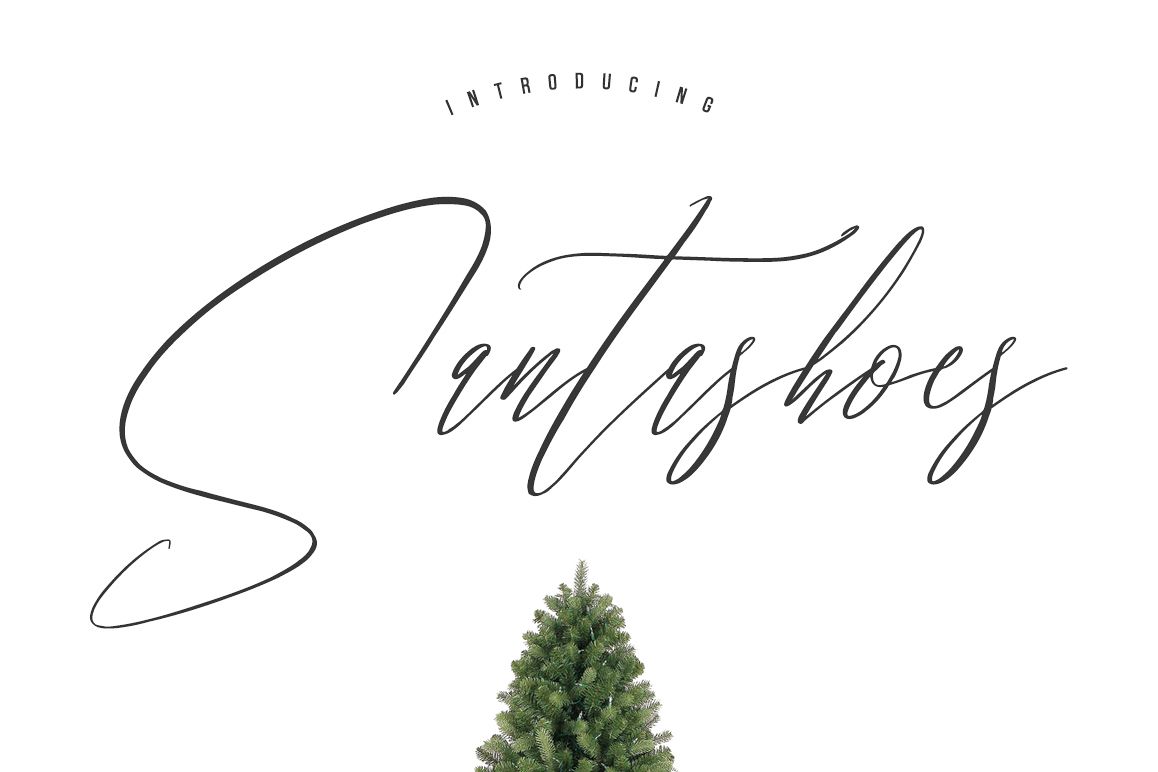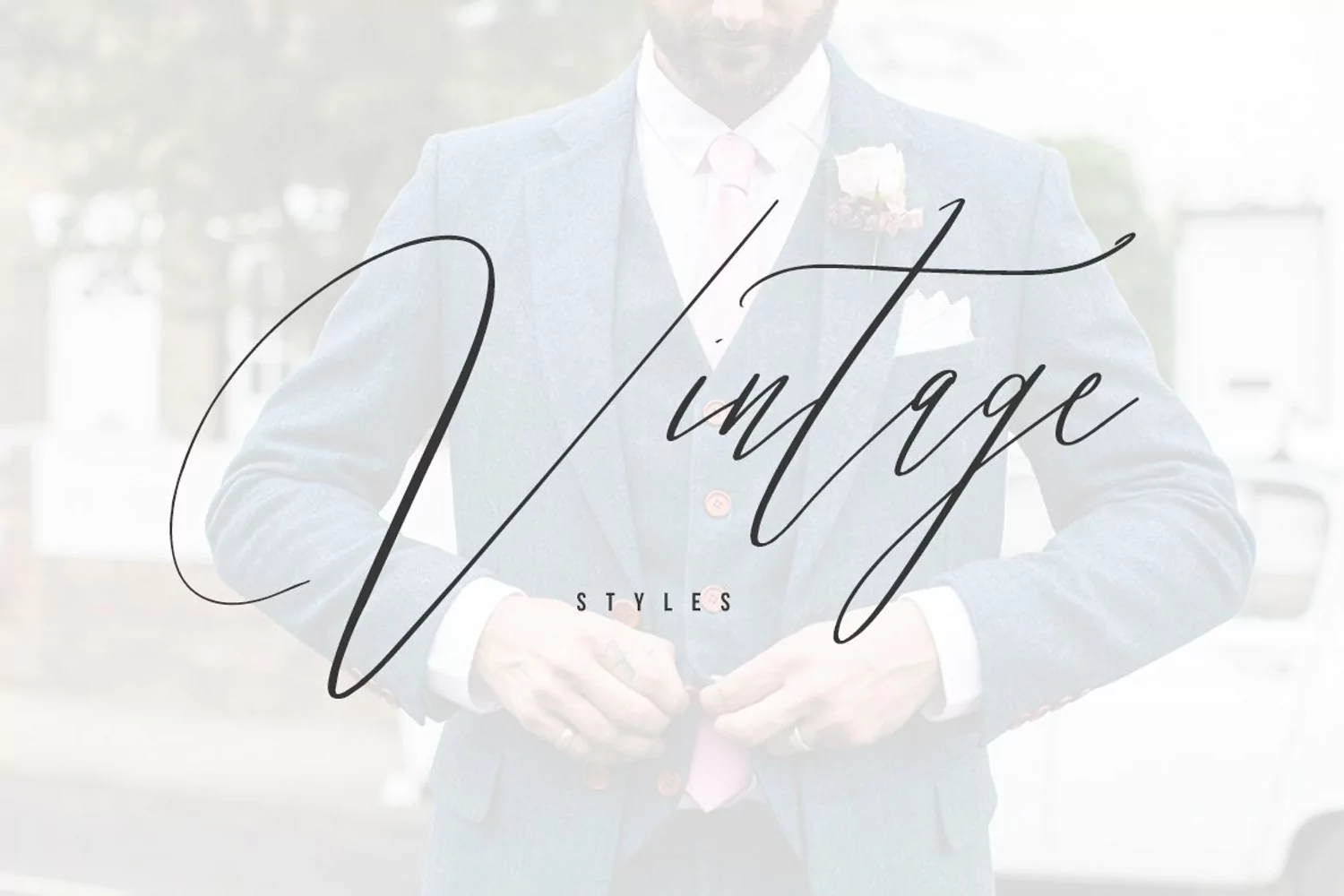
Santashoes Typeface
Give your designs an authentic handcrafted feel. "Santashoes" is perfectly suited to signature, stationery, logo, typography quotes, magazine or book cover, website header, clothing, branding, packaging design and more.